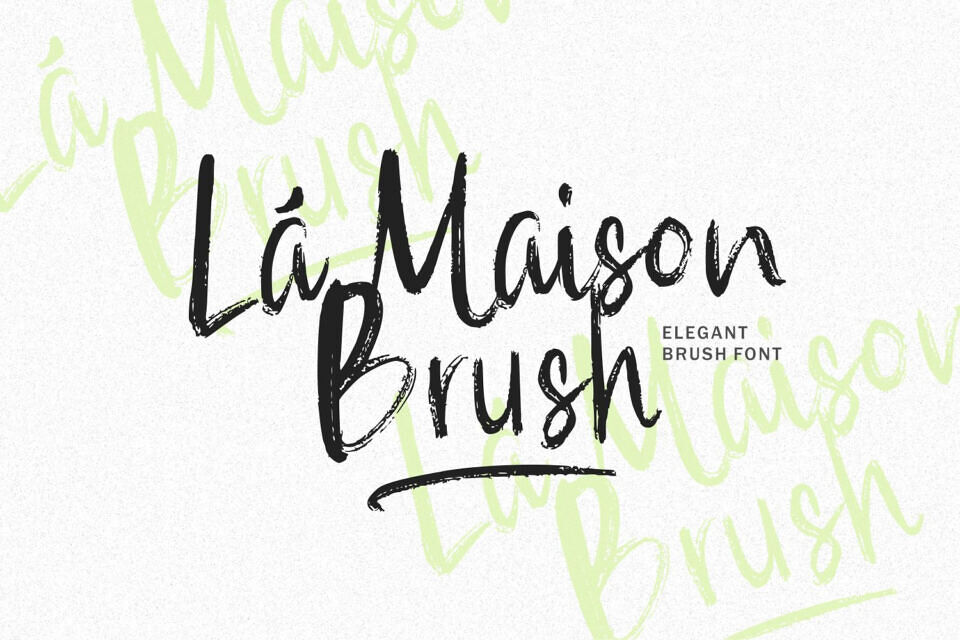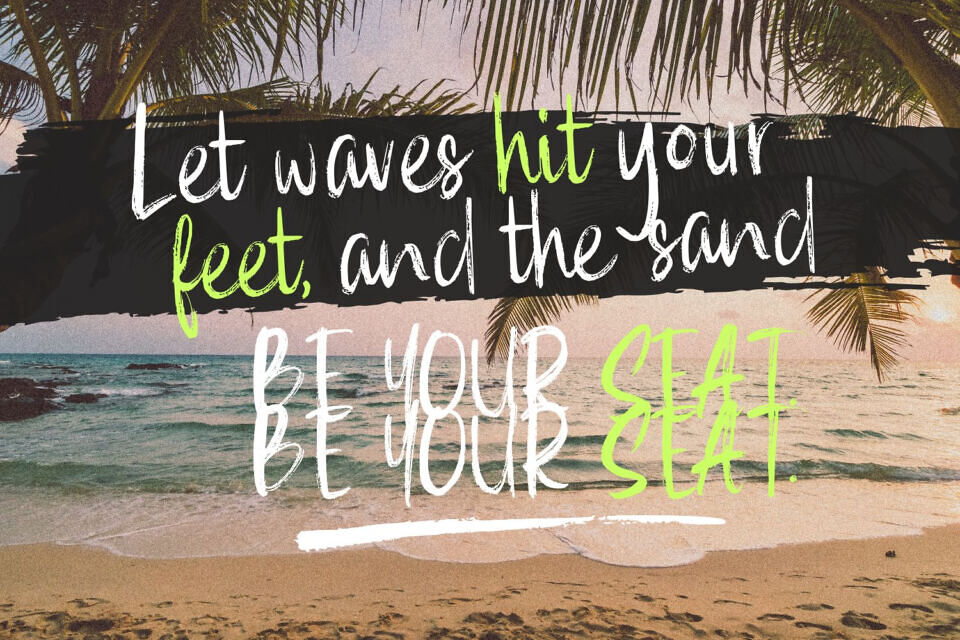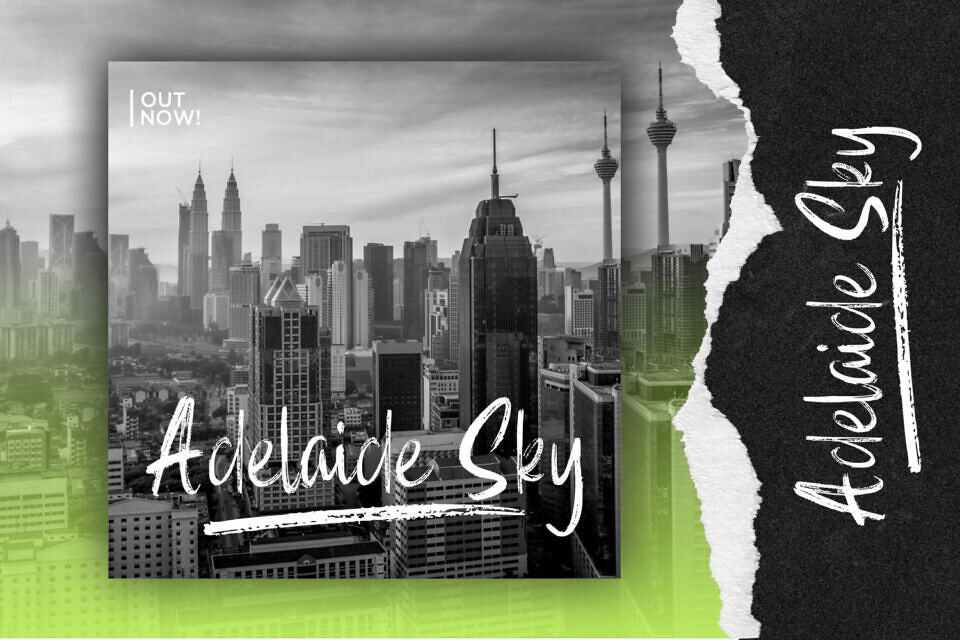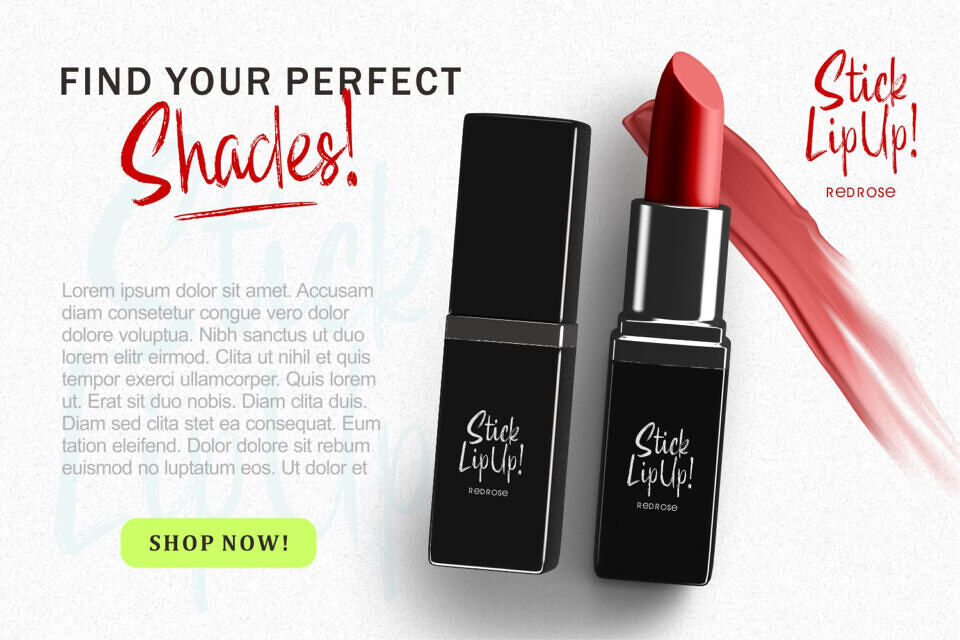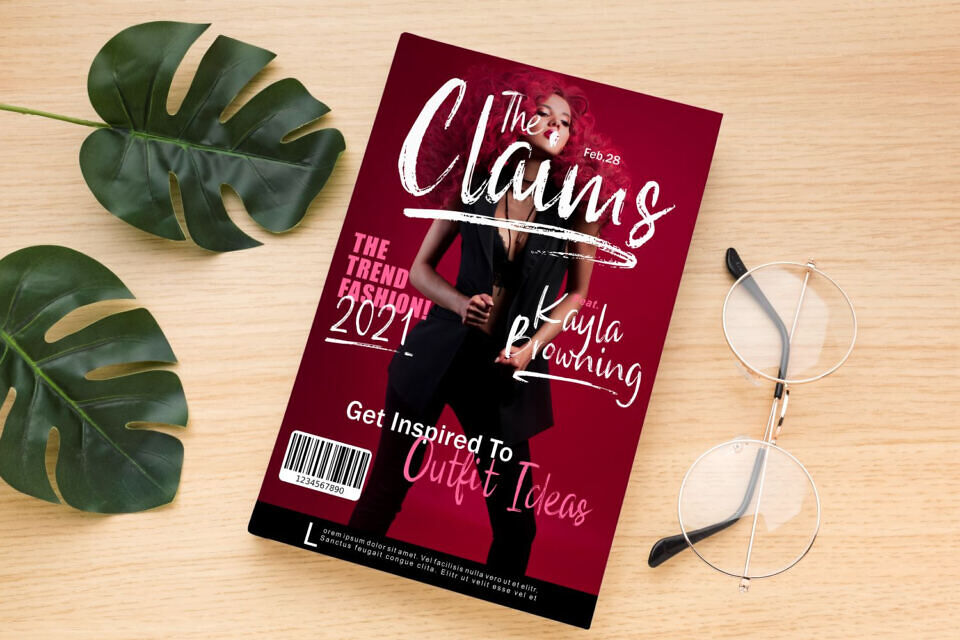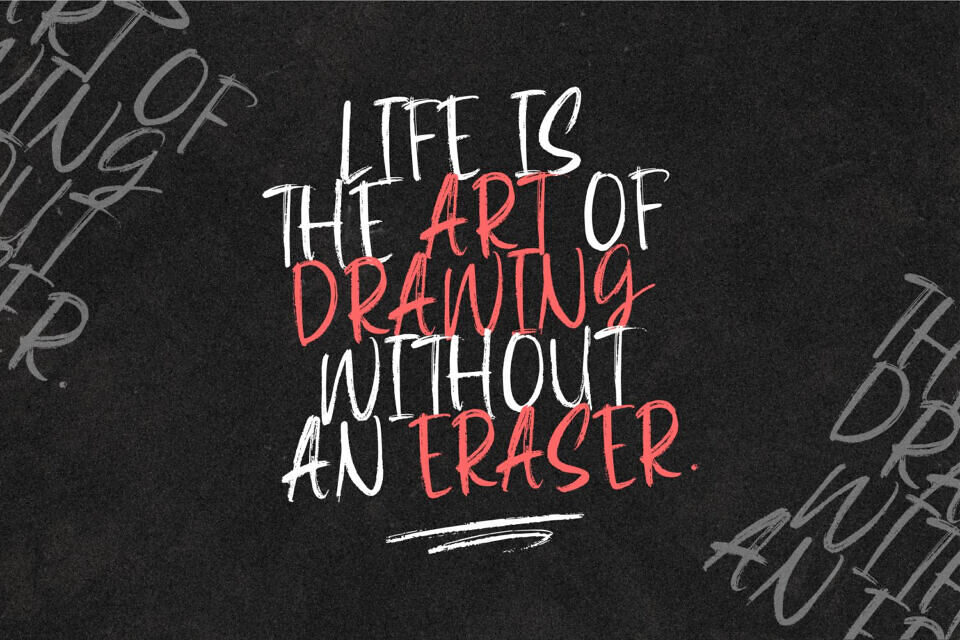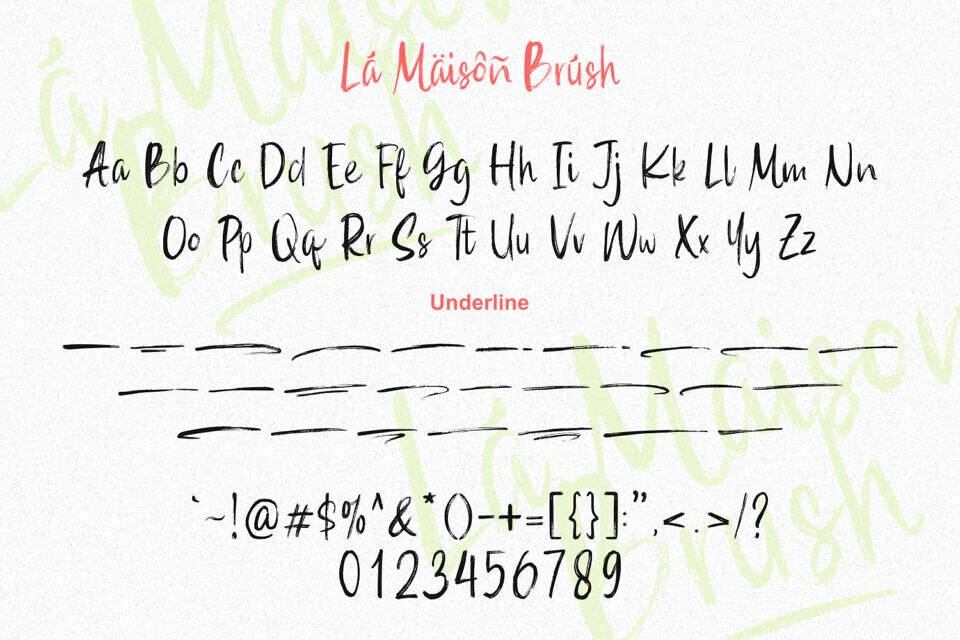
La Maison is a cursive brushed script font with a contemporary atmosphere and impeccable form, inspired by timeless classic calligraphy. Not too thin and not too thick, balanced and varied, this font was designed to enhance the beauty of your projects.